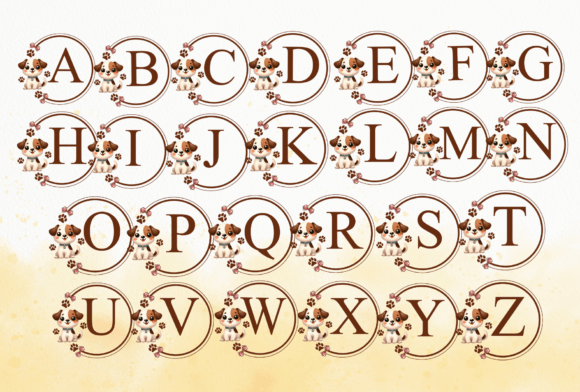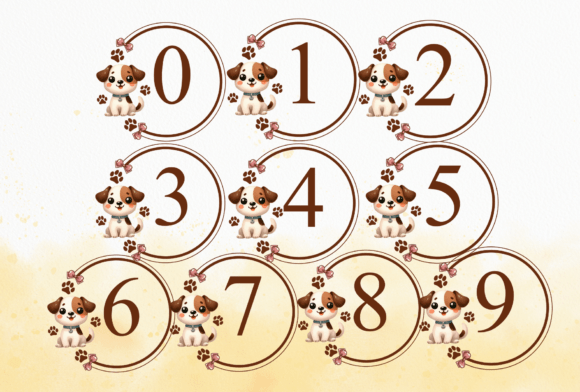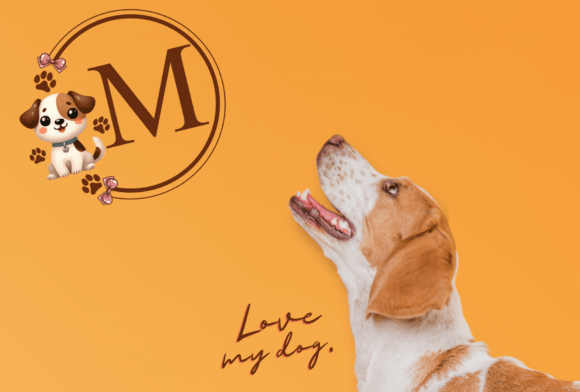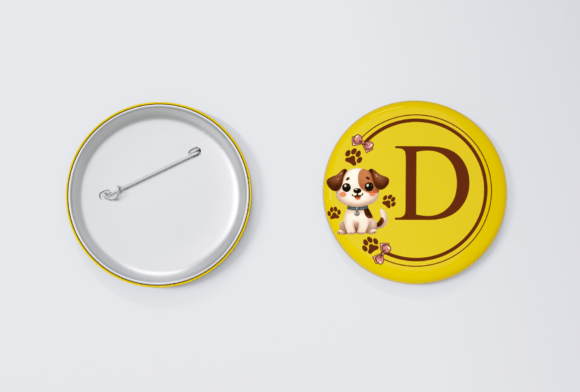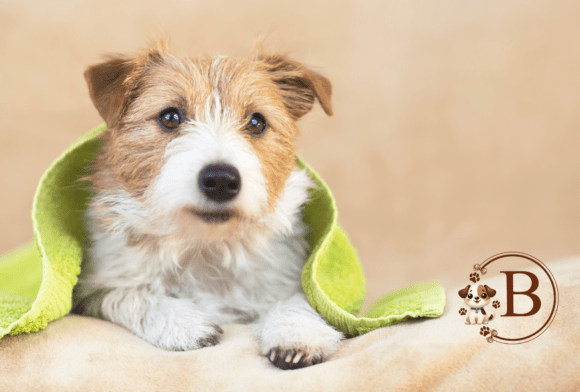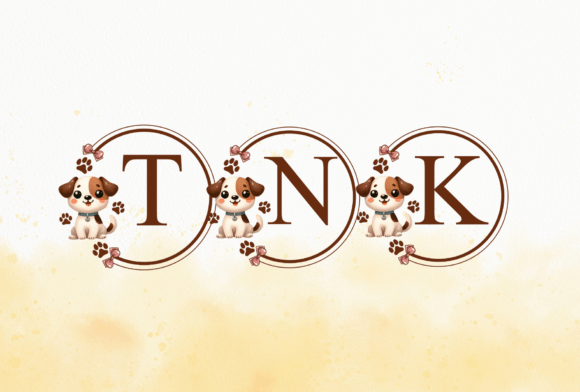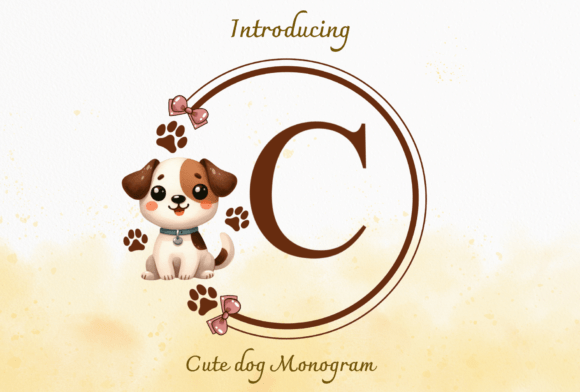
Cute Dog Monogram Font: Add a Dash of Love and Charm to Your Designs
Are you a designer or crafter looking for a unique and heartwarming font to add a personal touch to your pet-themed branding, baby items, nursery decor, and greeting cards? Look no further than the Cute Dog Monogram Font! This delightful font collection features monogram letters paired with adorable puppies, paw prints, and playful details that are sure to capture the hearts of dog lovers and design enthusiasts alike.
What is Cute Dog Monogram Font?
Cute Dog Monogram Font is a whimsical font collection that combines beautiful monogram letters with cute dog illustrations, creating a charming and eye-catching design element. The font features a range of uppercase and lowercase letters, each adorned with a lovable puppy or playful paw print, making it perfect for a variety of design projects.
Key Features of Cute Dog Monogram Font
- Monogram letters: Each letter of the alphabet is carefully designed with a unique monogram style, paired with an adorable puppy or paw print.
- Whimsical illustrations: The font features a range of playful dog illustrations, from happy puppies to cute paw prints, adding a touch of personality to each design.
- Uppercase and lowercase letters: The font includes both uppercase and lowercase letters, making it versatile for a range of design projects.
- Playful details: The font is full of playful details, from wagging tails to floppy ears, that bring the designs to life.
Perfect for Pet-Themed Branding and Design Projects
Cute Dog Monogram Font is perfect for designers and crafters who specialize in pet-themed branding, baby items, nursery decor, and greeting cards. The font’s playful and heartwarming designs are sure to appeal to dog lovers and parents alike, making it an excellent choice for:
- Pet-themed branding: Create adorable logos, business cards, and packaging for pet-related businesses, such as pet stores, dog walkers, or pet groomers.
- Baby items: Design cute onesies, baby blankets, and nursery decor featuring the Cute Dog Monogram Font.
- Greeting cards: Create heartwarming greeting cards for dog lovers, pet owners, and parents.
Tips for Using Cute Dog Monogram Font
To get the most out of Cute Dog Monogram Font, here are some design tips:
- Mix and match: Combine different monogram letters and illustrations to create a unique design.
- Experiment with colors: Try out different color schemes to match your brand or design style.
- Add textures and patterns: Incorporate textures and patterns to add depth and interest to your design.
Cute Dog Monogram Font is a delightful font collection that adds a dash of love and charm to every design. With its whimsical illustrations, playful details, and heartwarming monogram letters, this font is perfect for designers and crafters who specialize in pet-themed branding, baby items, nursery decor, and greeting cards. So why not give it a try and see how Cute Dog Monogram Font can bring a smile to your customers’ faces?